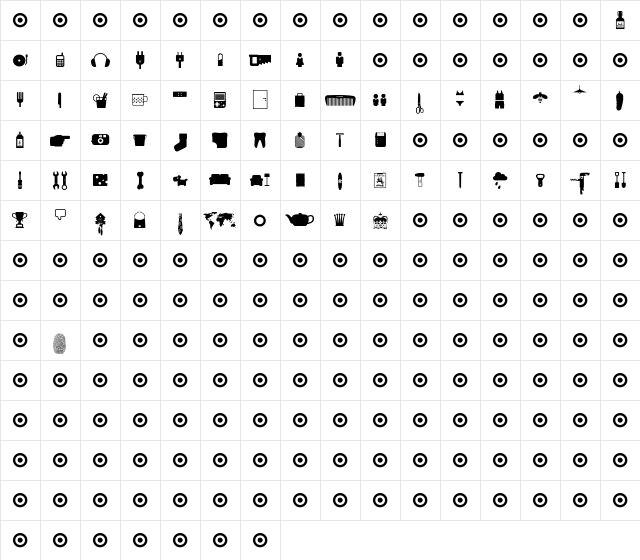
Ginger-Icons Regular
Ginger-Icons is a composed and adaptable typeface that performs quietly and consistently across a wide range of design contexts.